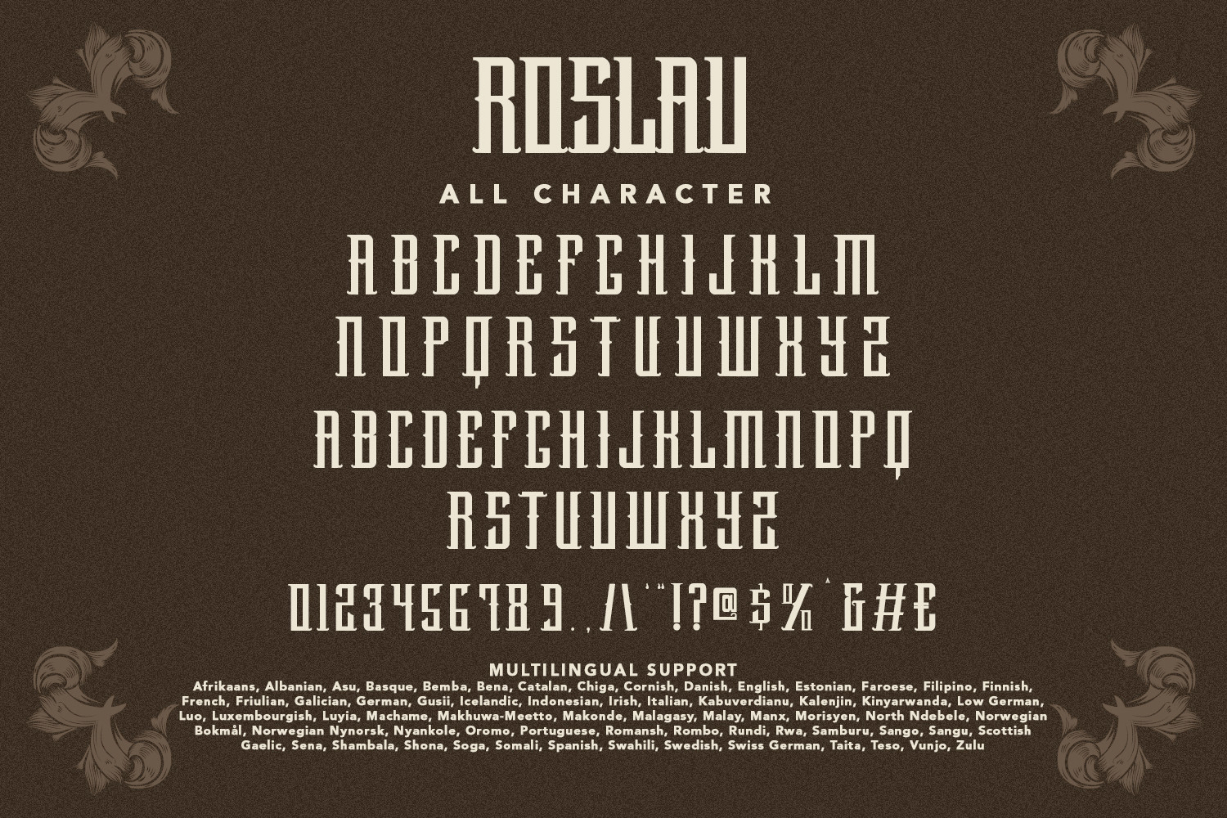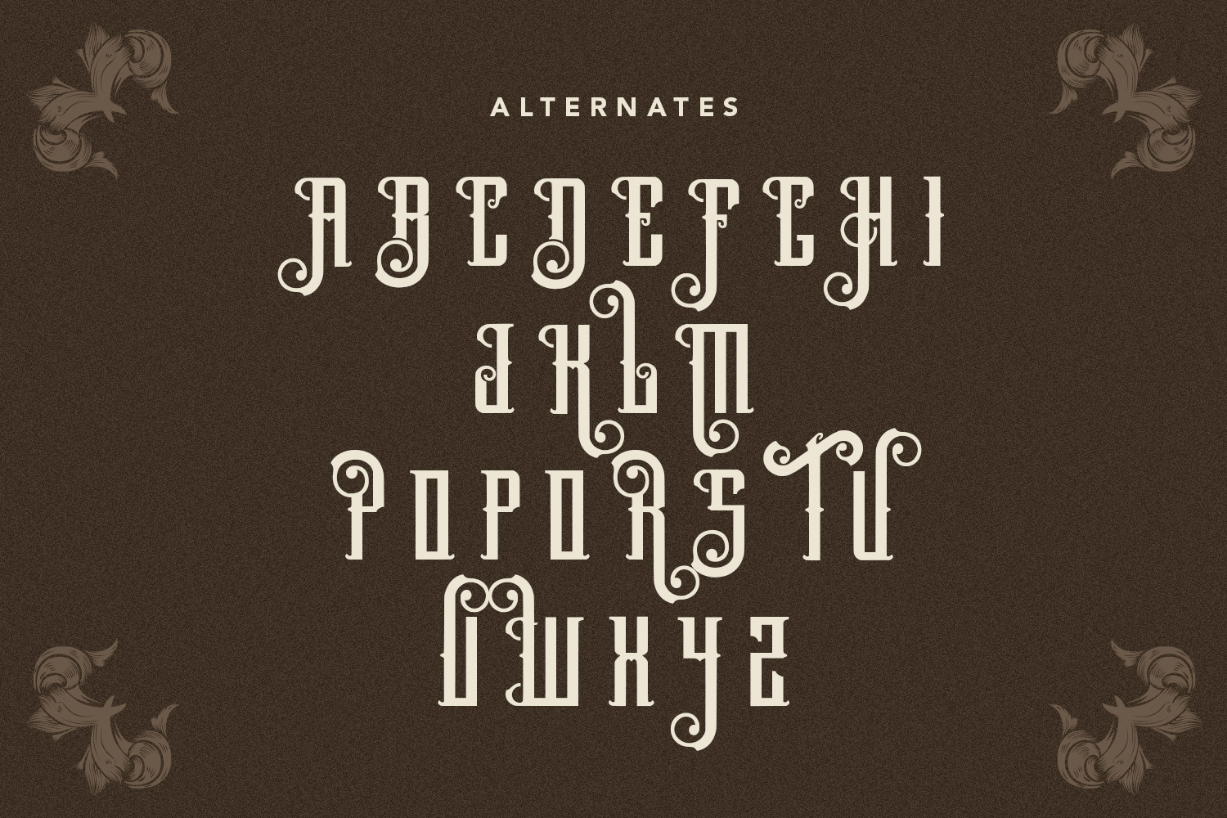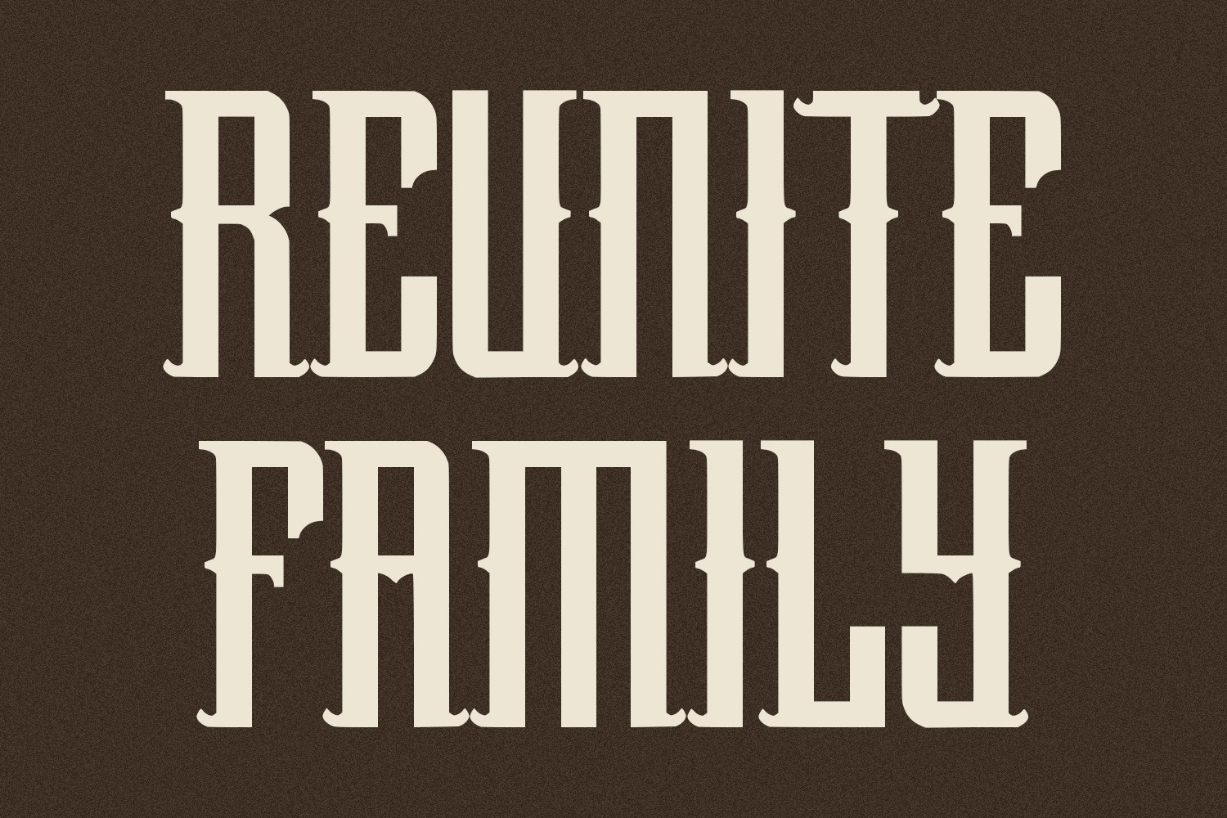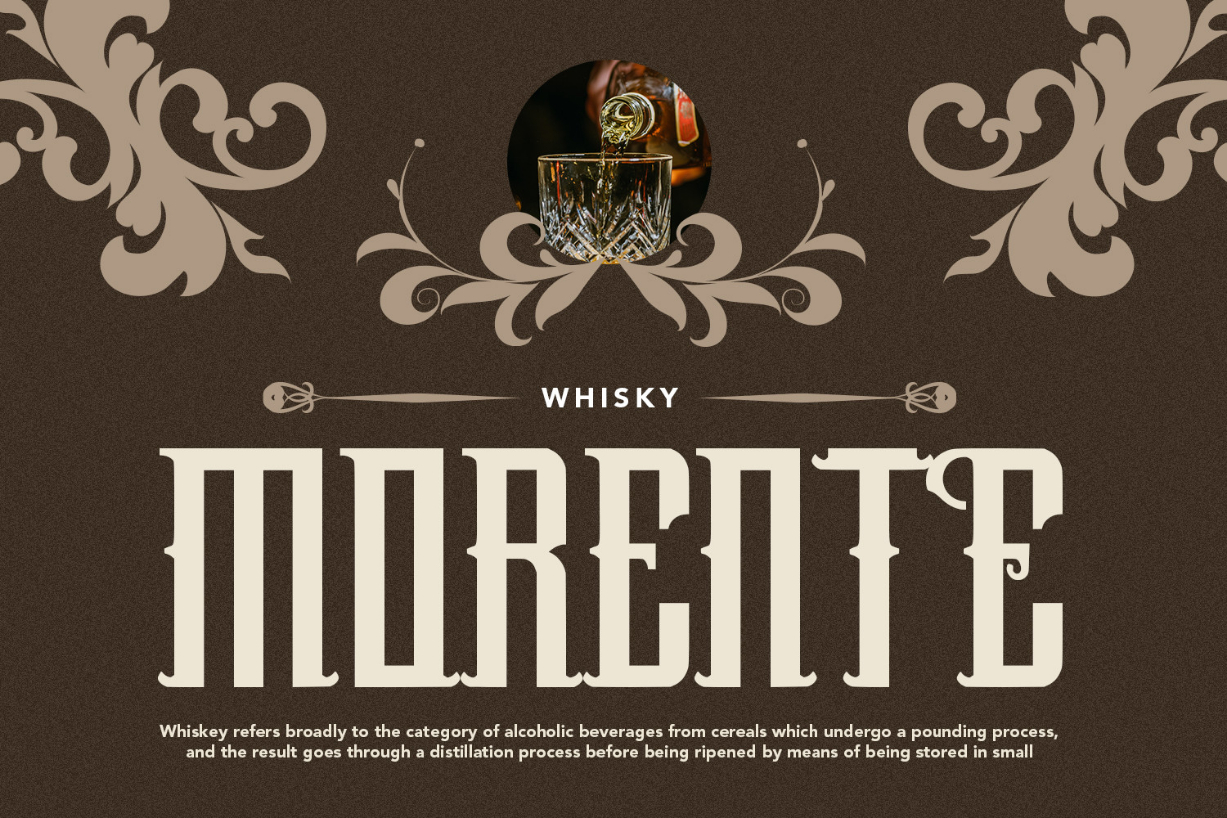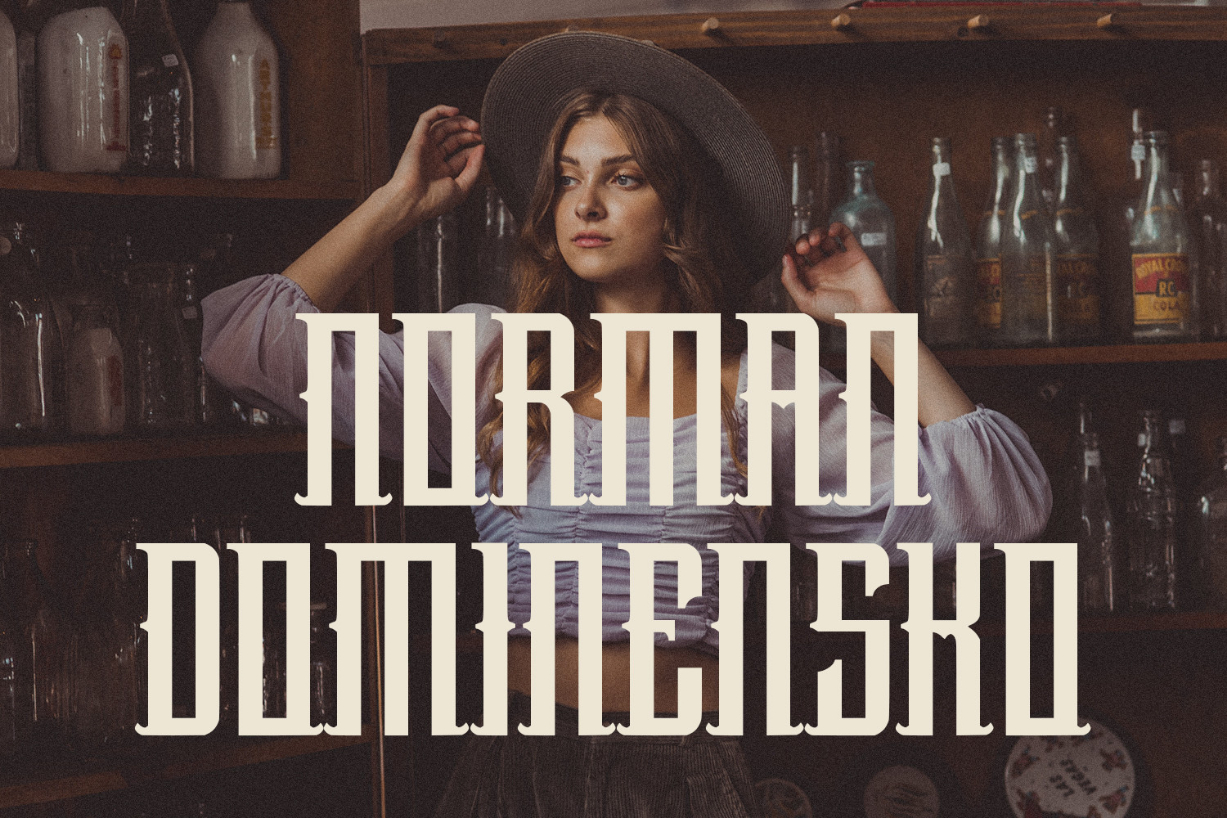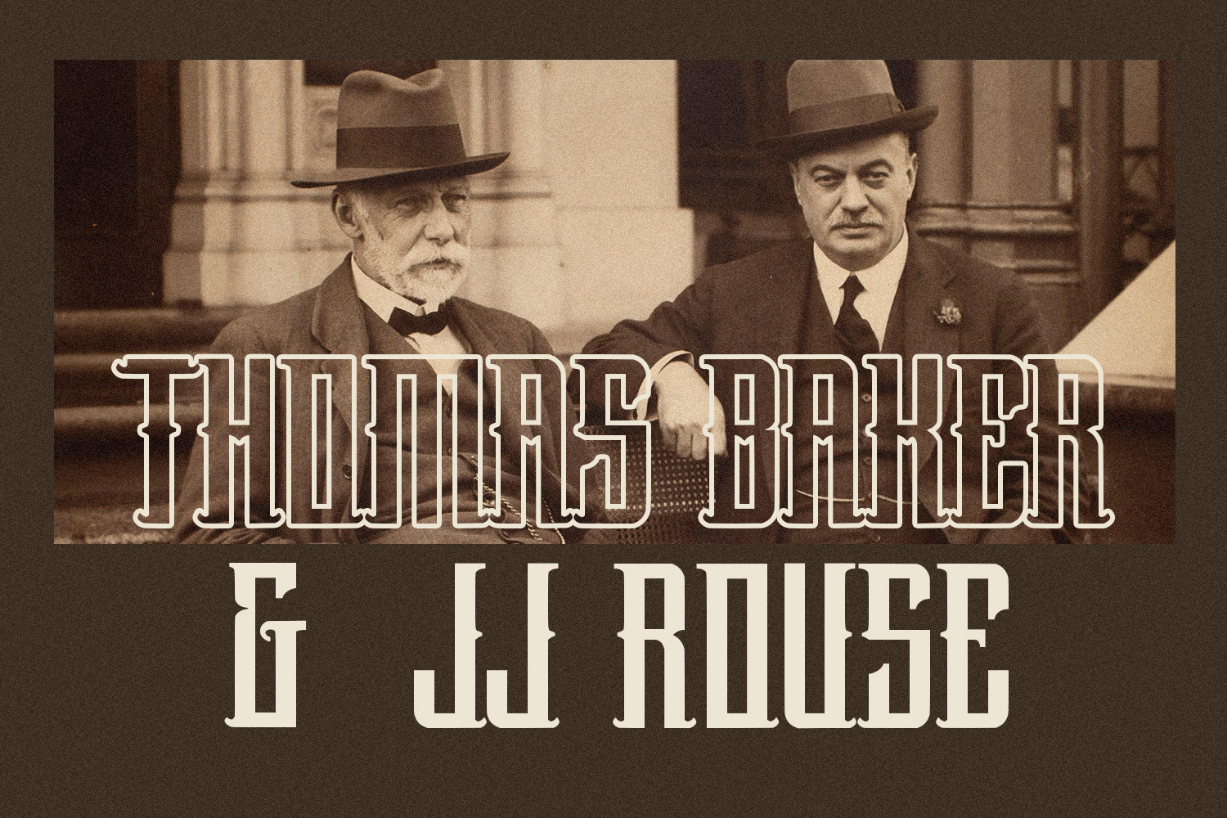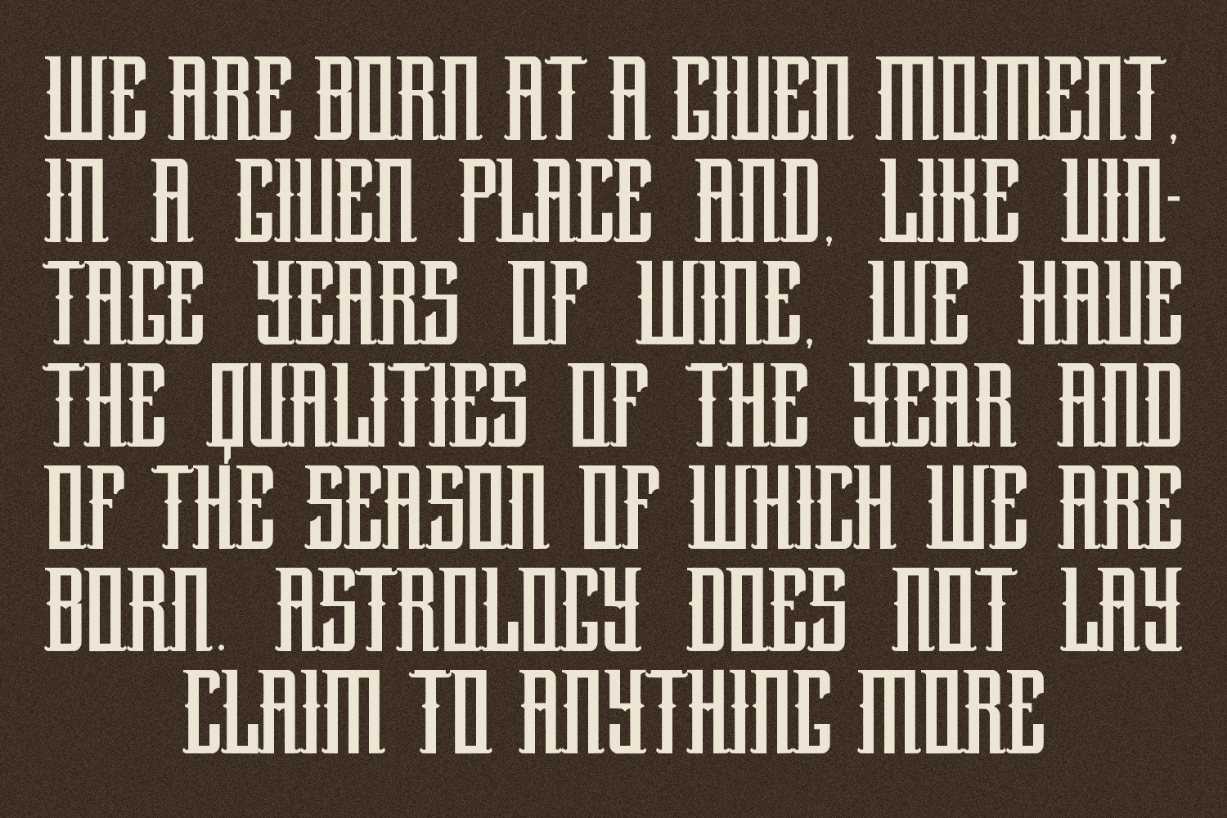
Roslav Font
About Roslav Font
Roslav Stylish Vintage Typeface is a modern display serif font. With bold contrast strokes, fun character with a bit of ligature. This font is good for logo design, Social media, Movie Titles, Books Titles, short text even long text letters, and is good for your secondary text font with sans or serif. Make stunning work with Hollarus font.